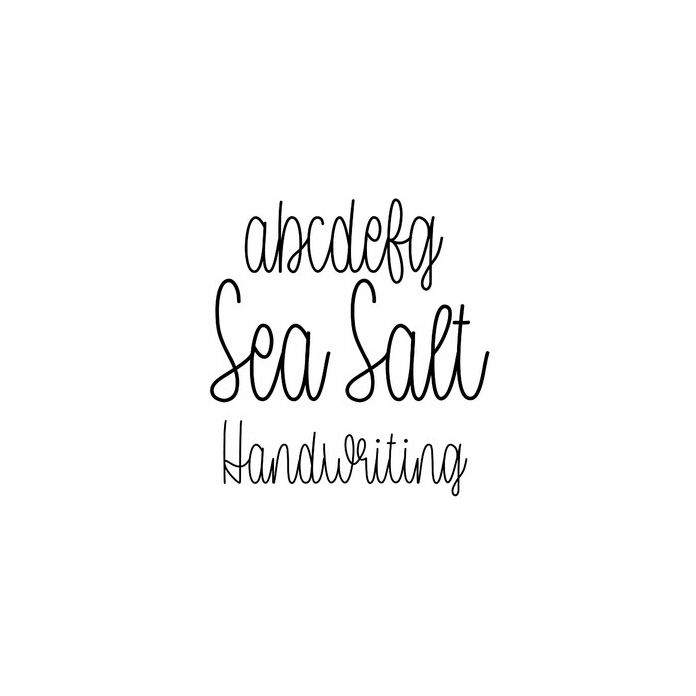
Sea Salt Handwriting is a neat modern script font for signs, cards, monograms, labels, crafts, and personalization projects. Includes alphabet, numbers, and punctuation.